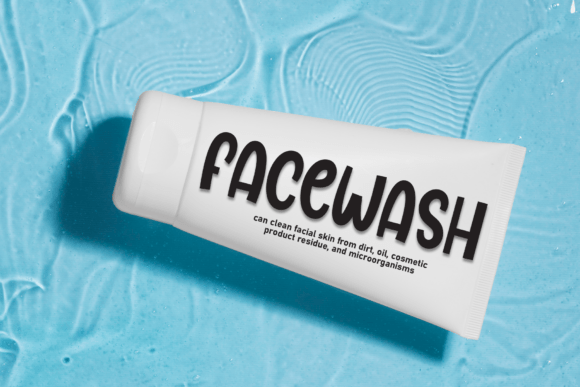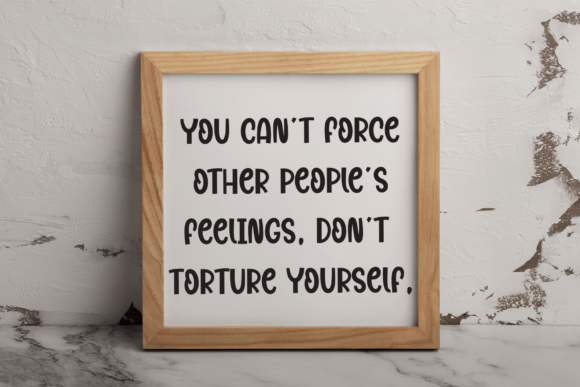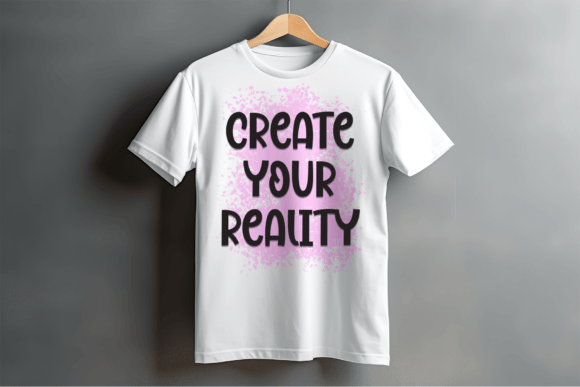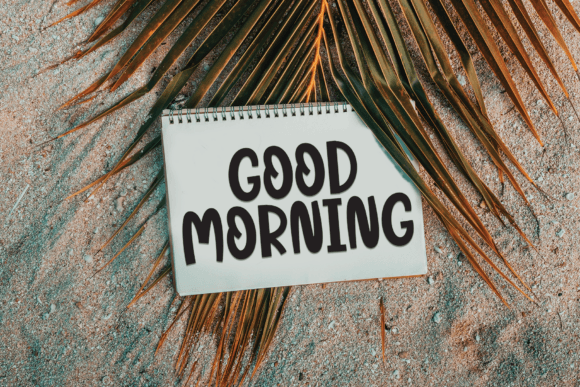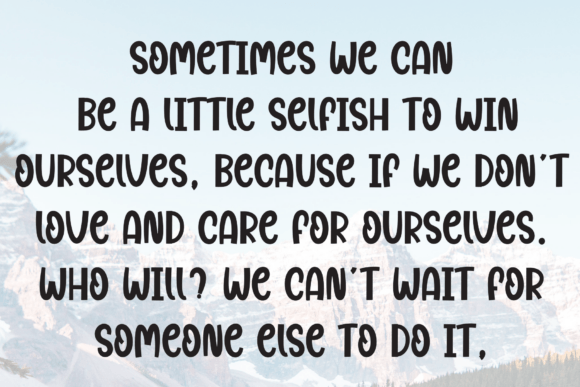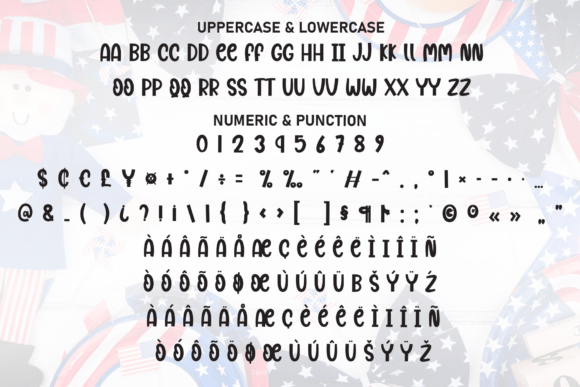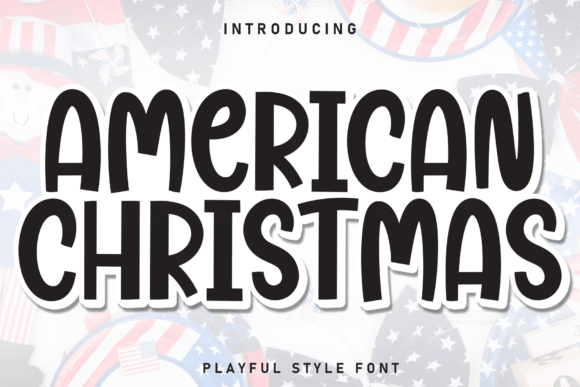
Introducing the American Christmas Font: A Festive and Playful Holiday Display Font
The holiday season is upon us, and what better way to get into the spirit than with a beautiful, festive font to adorn your Christmas cards, decorations, and designs? Look no further than the “American Christmas” font, a cheerful, handwritten display font that’s perfect for adding a personal touch to your holiday creations.
A Cheerful, Casual Style
The “American Christmas” font boasts a cheerful, casual style that’s sure to put a smile on anyone’s face. Its playful curves and strokes evoke a sense of nostalgia and warmth, reminiscent of a bygone era. This font is ideal for designers and crafters looking to add a touch of personality to their holiday projects, whether it’s a Christmas card, a gift tag, or a festive decoration.
Key Features of the American Christmas Font
- Handwritten style: The “American Christmas” font features a beautiful, handwritten style that’s perfect for adding a personal touch to your holiday designs.
- Playful curves and strokes: The font’s playful curves and strokes give it a lively, festive feel that’s sure to capture the spirit of the holiday season.
- Cheerful, casual style: The font’s cheerful, casual style makes it perfect for use on Christmas cards, decorations, and other holiday designs.
- Easy to read: Despite its playful style, the “American Christmas” font is easy to read, making it perfect for use on a variety of holiday projects.
Uses for the American Christmas Font
The “American Christmas” font is incredibly versatile, and can be used on a wide range of holiday projects, including:
- Christmas cards: Add a personal touch to your holiday cards with the “American Christmas” font.
- Gift tags: Use the font to create beautiful, personalized gift tags that will make your gifts stand out.
- Festive decorations: The font is perfect for use on festive decorations, such as holiday banners, garlands, and signs.
- Holiday crafts: The “American Christmas” font is a great addition to any holiday craft project, from scrapbooking to paper crafting.
Tips for Using the American Christmas Font
Here are a few tips for getting the most out of the “American Christmas” font:
- Use it sparingly: While the “American Christmas” font is festive and fun, it can be overwhelming if used too much. Use it sparingly to add a touch of personality to your holiday designs.
- Pair it with other fonts: The “American Christmas” font pairs well with other fonts, such as serif and sans-serif fonts. Experiment with different pairings to find the one that works best for your project.
- Experiment with colors: The font looks great in a variety of colors, from traditional holiday colors like red and green to more modern colors like metallic silver and gold.
The “American Christmas” font is a beautiful, festive font that’s perfect for adding a personal touch to your holiday designs. Its cheerful, casual style and playful curves and strokes make it a great choice for designers and crafters looking to create unique and festive holiday projects. Whether you’re creating Christmas cards, gift tags, or festive decorations, the “American Christmas” font is sure to be a hit.